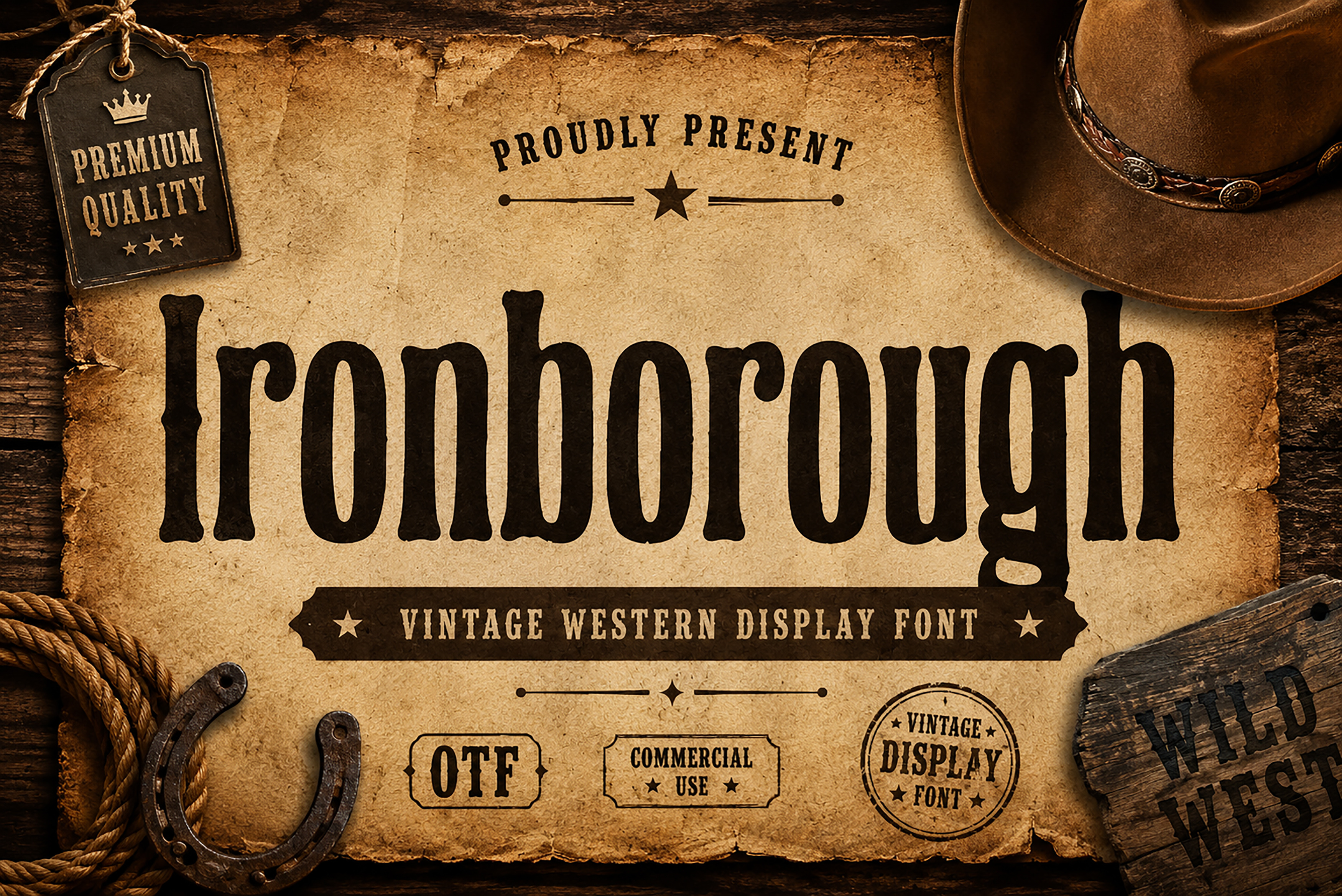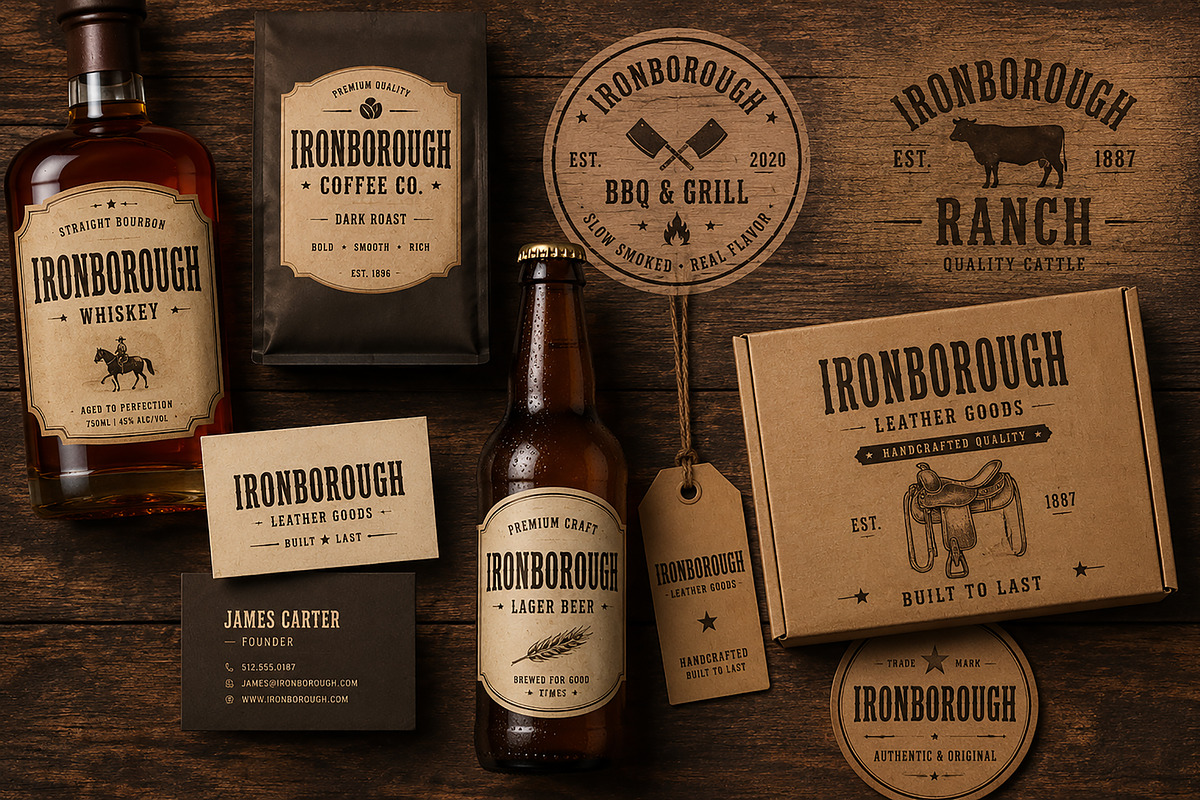
Ironborough – Western Display Font
Ironborough – Vintage Western Display Font
Description
Ironborough is a bold vintage western display font inspired by old saloon signs, frontier towns, handcrafted wood lettering, and classic cowboy branding. Its strong character, rugged curves, and authentic rustic style make it a perfect choice for eye-catching headlines, logos, signage, and heritage-inspired designs.
Whether you're creating whiskey labels, BBQ restaurant branding, ranch logos, western festival posters, country merchandise, or vintage packaging, Ironborough delivers a timeless western aesthetic with a bold and confident presence.
Designed for creatives who want an authentic old-west look, this font works beautifully across print and digital projects while adding a handcrafted vintage personality to every design.
Western Logos
Saloon Signs
Whiskey Labels
Beer Labels
BBQ Restaurant Branding
Ranch & Farm Logos
Country Music Posters
Vintage Packaging
Coffee Branding
Outdoor Signage
Festival Posters
T-Shirt Designs
Stickers
Branding Projects
Advertising
Labels & Badges
Display Typography
Bring authentic western charm and vintage craftsmanship to your next creative project with Ironborough.